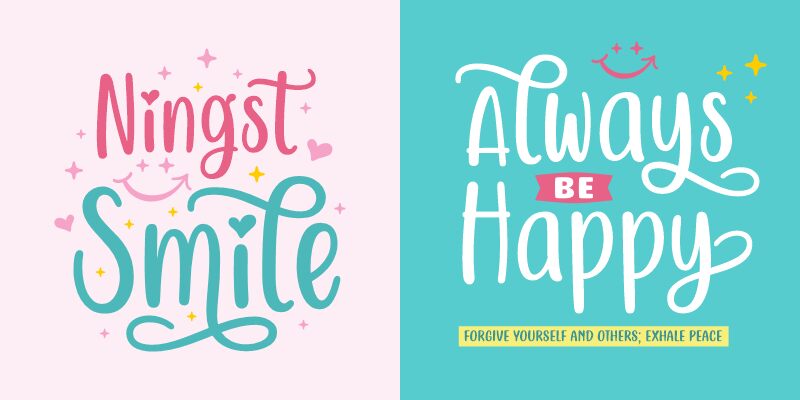
Ningst Smile is a cute, narrow handwritten font perfect for any creative project. Its playful style makes it ideal for crafting logos, invitations, cards and posters. Developed by Nista Ningsih Nazara and Situjuh Nazara, Ningst Smile is sure to add a whimsical touch to your designs!
Ningst Smile